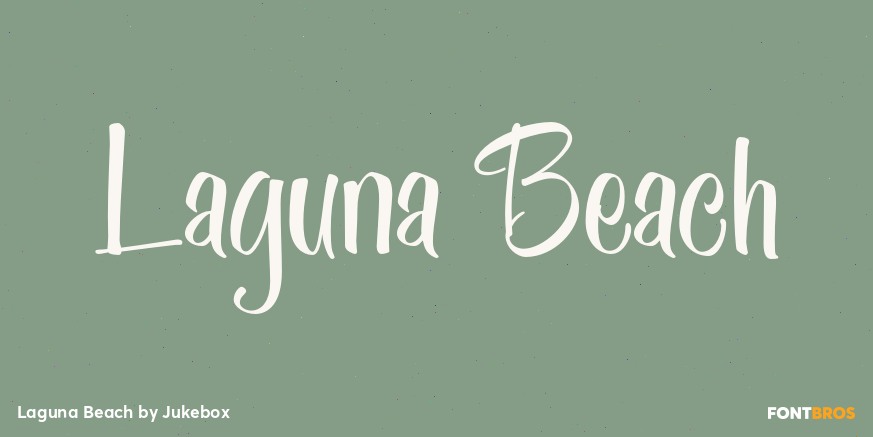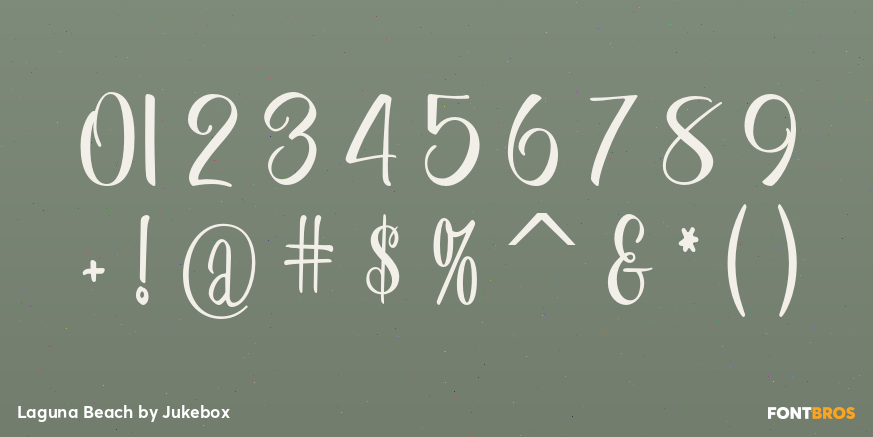
Laguna Beach
Font Family by Jukebox
Laguna Beach is a font that was created from a digital revival that was then altered to be its own unique design. Fun and casual, this font evokes a feeling of carefree summer days and Southern California beach life. A great casual script for a variety of uses.